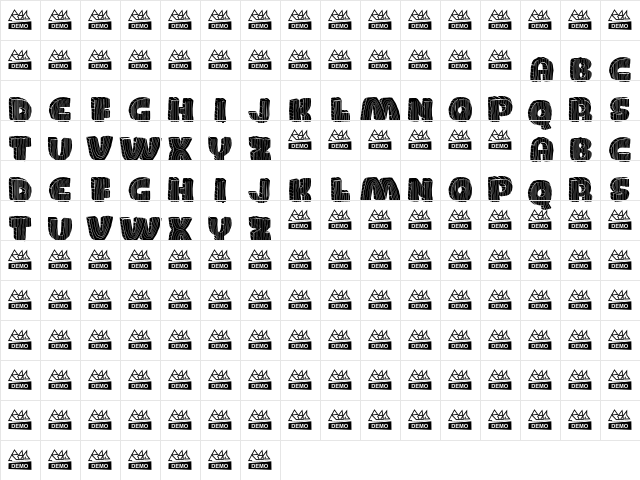
WOOD echoes the hand-painted signage and woodblock typography of the American frontier, with a warm, rugged personality.
Font Pairing: Combine WOOD with a simple slab or neutral sans - period-accurate companions reinforce the vintage feel without competing for attention.
Pro Tip: Use WOOD for short, impactful bursts of text - it shines in poster headlines and product names rather than extended copy.